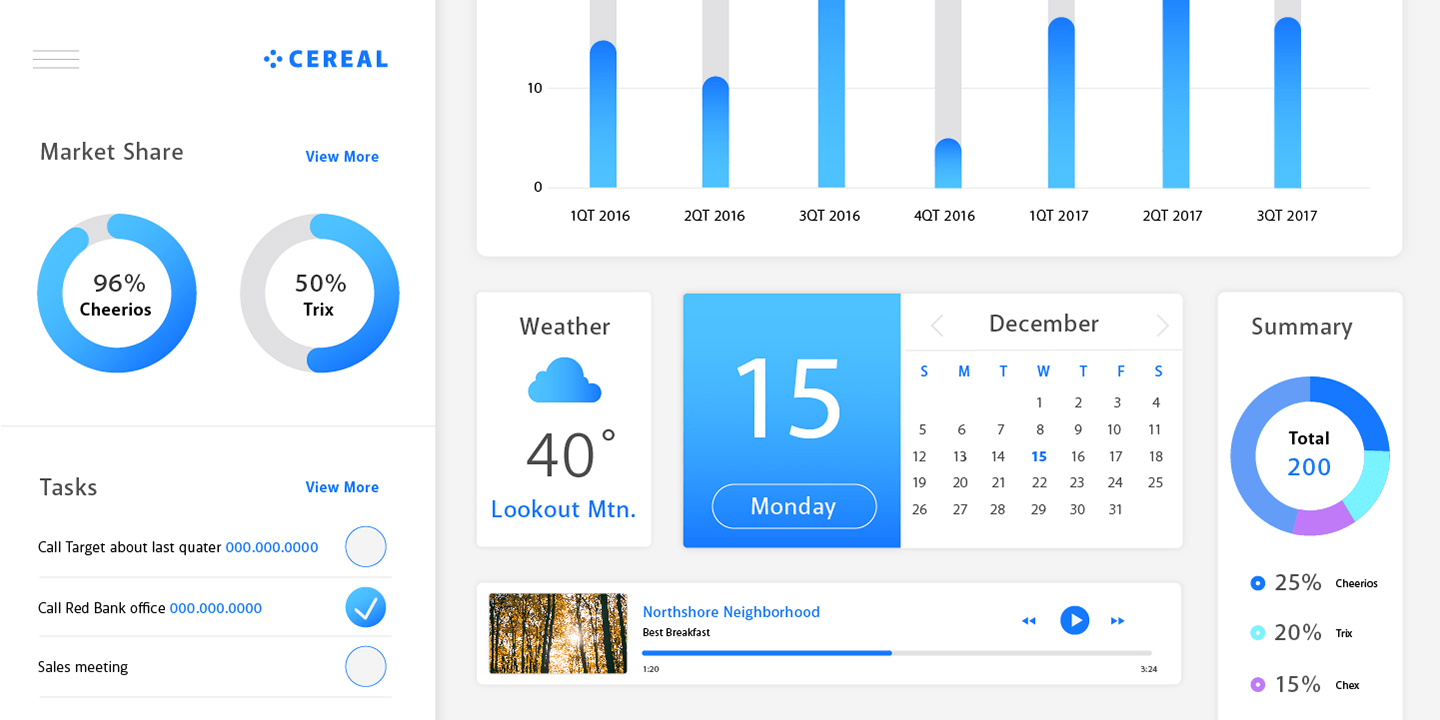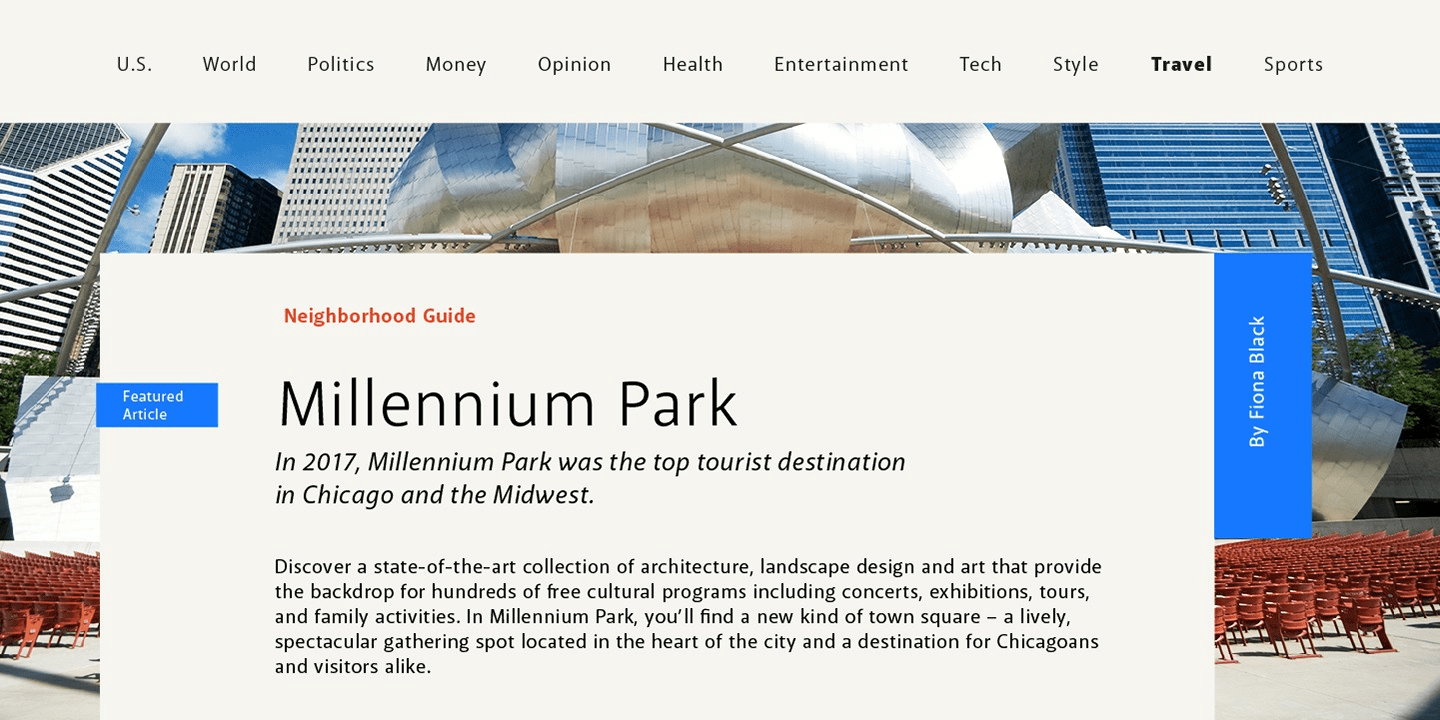
Akagi Pro
About Akagi Pro
Akagi Pro is a complete rebuild and expansion of my popular Akagi typeface. Contemporary, clean, simple and friendly continue to serve as the adjectives for an expansion that includes 250+ additional characters per weight, many new ligature options, expanded…